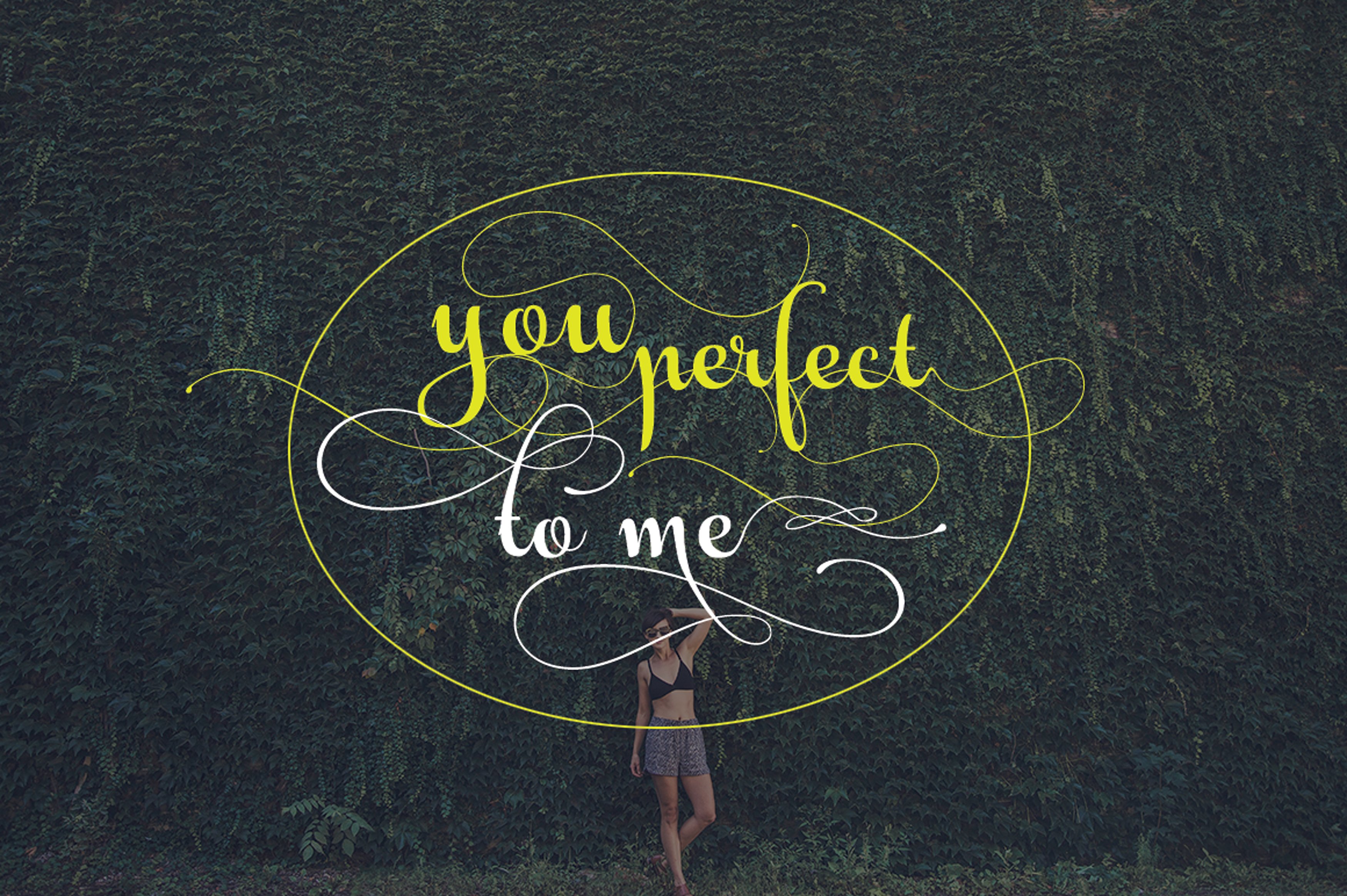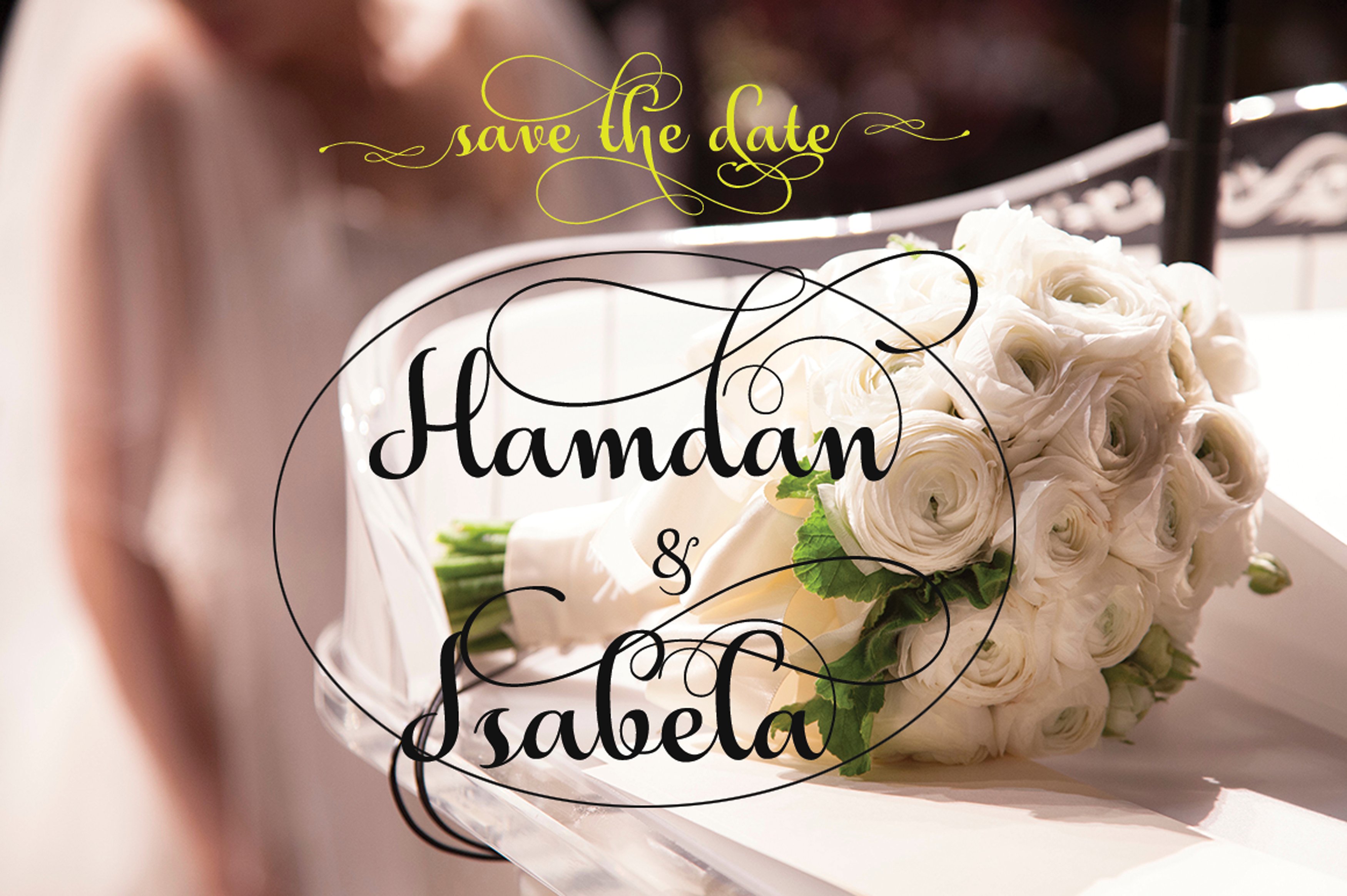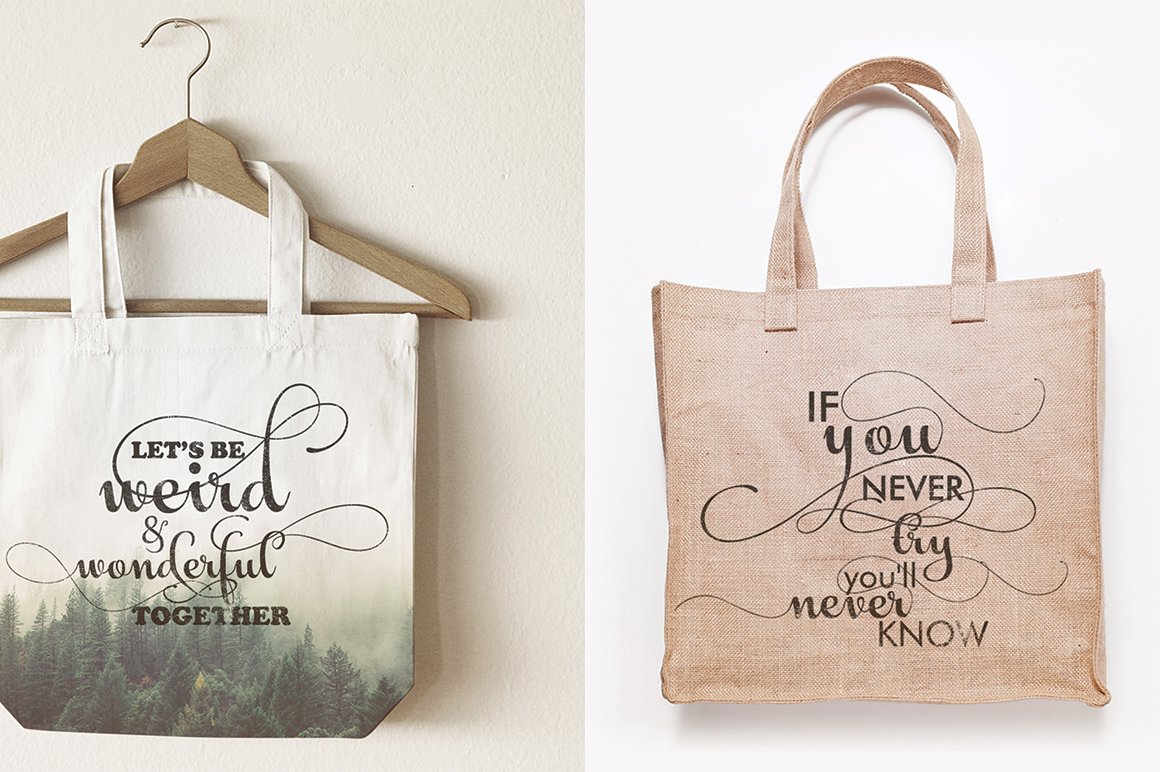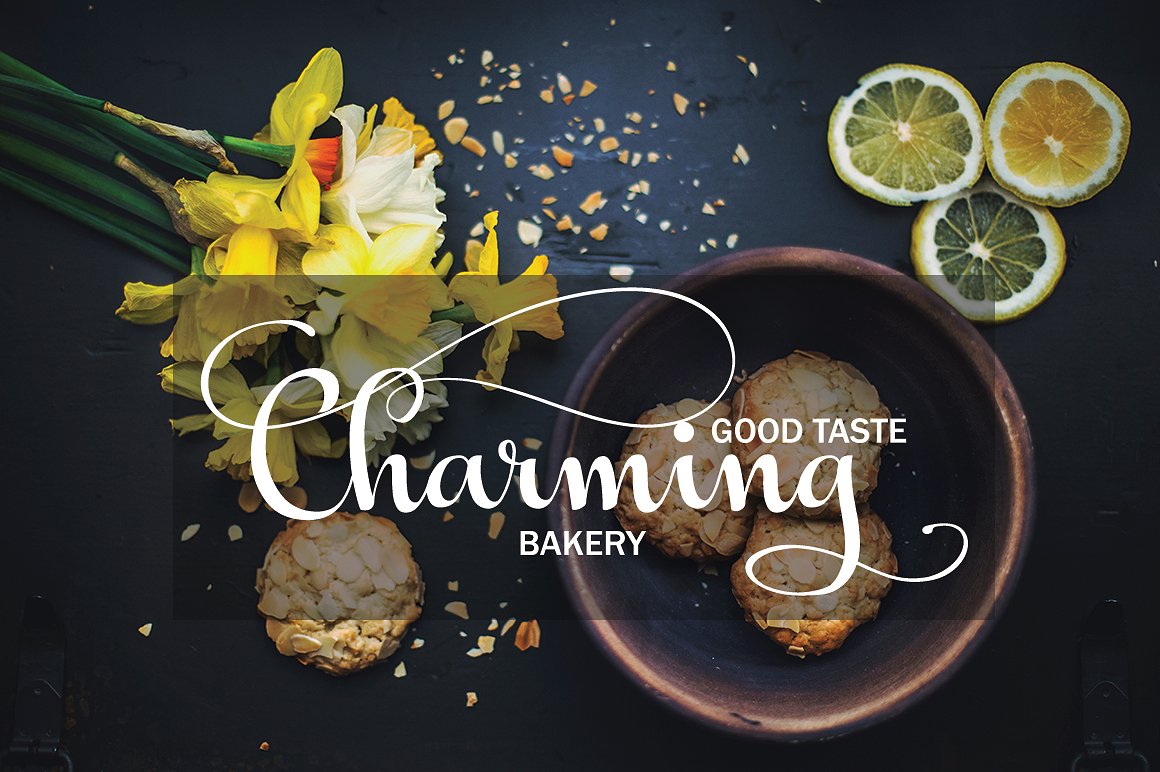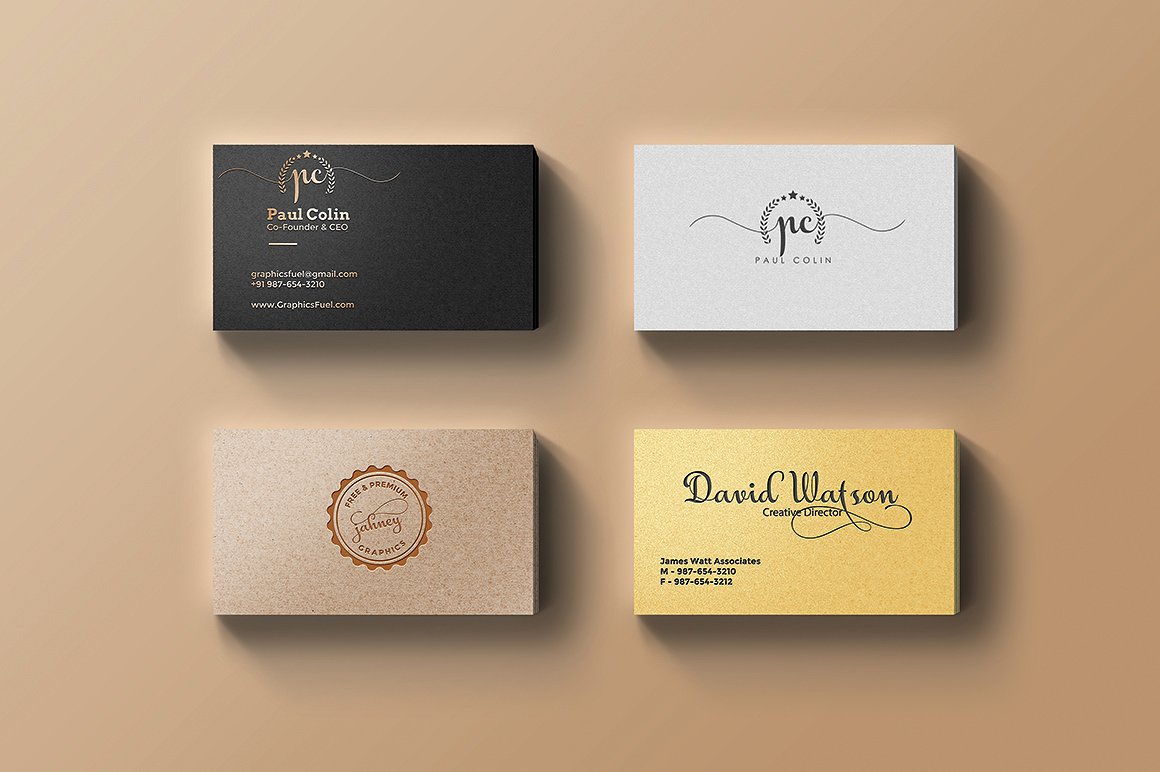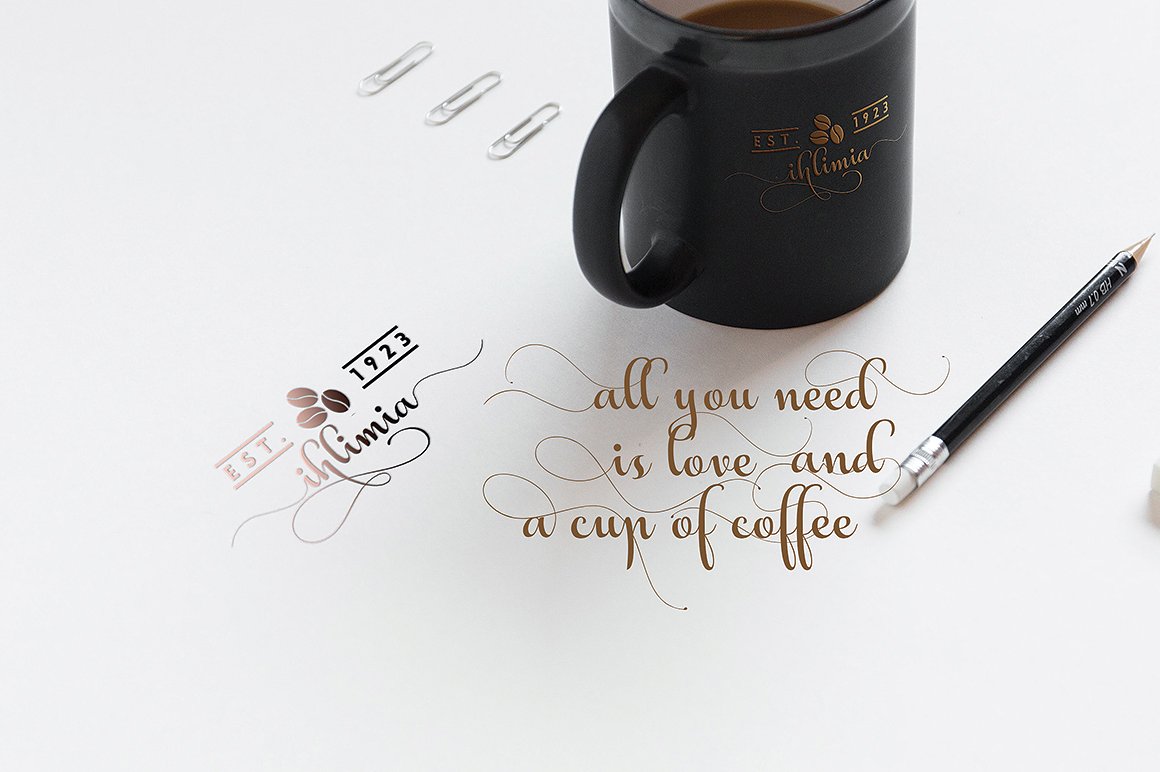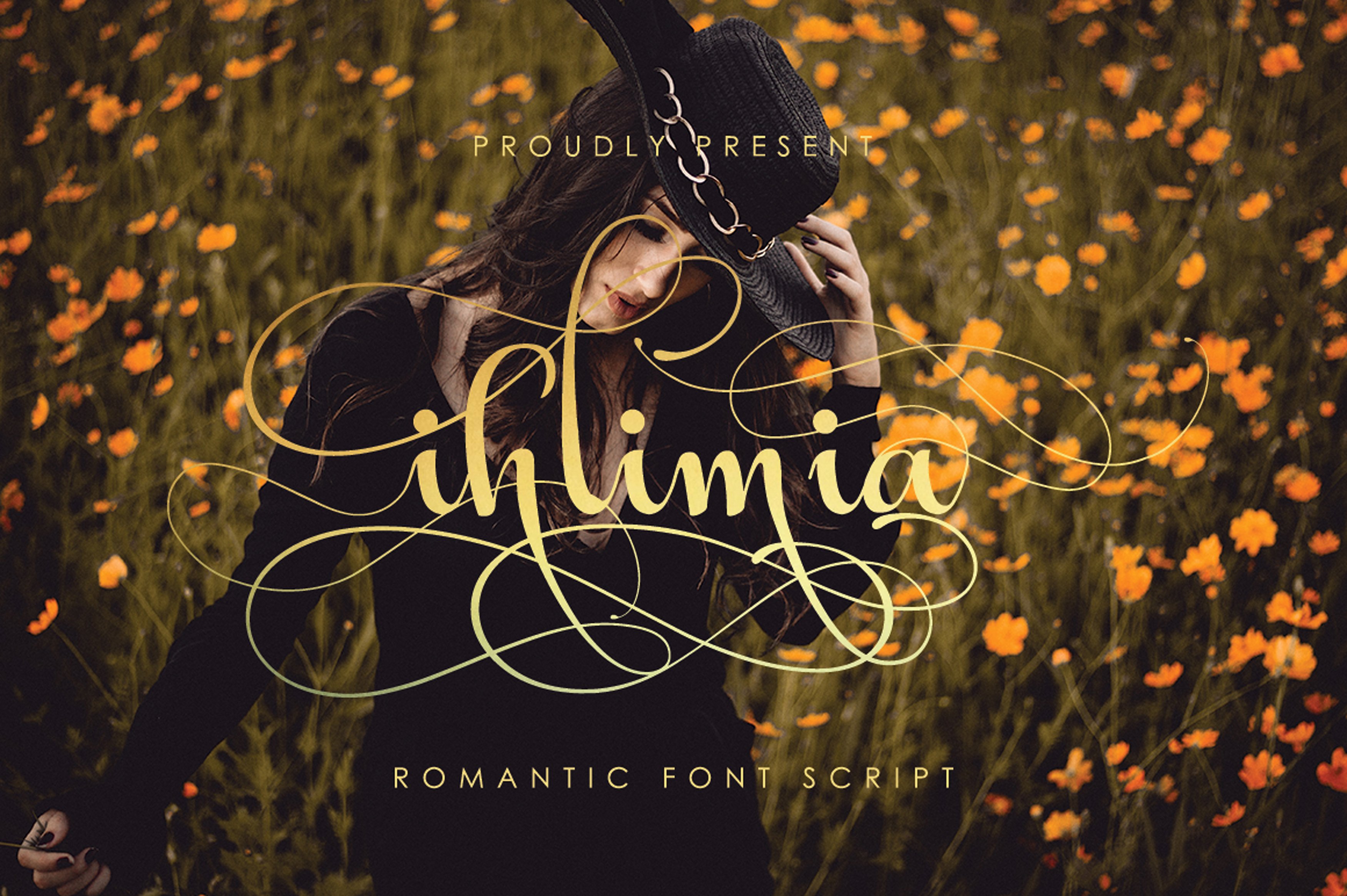
Ihlimia Romantic
Ihlimia Romantic Script Font
Ihlimia is romantic script font, every single letters have been carefully crafted to make your text looks beautiful. With modern script style this font will perfect for many different project ex: quotes, blog header, poster, wedding, branding, logo, fashion, apparel, letter, invitation, stationery, etc.